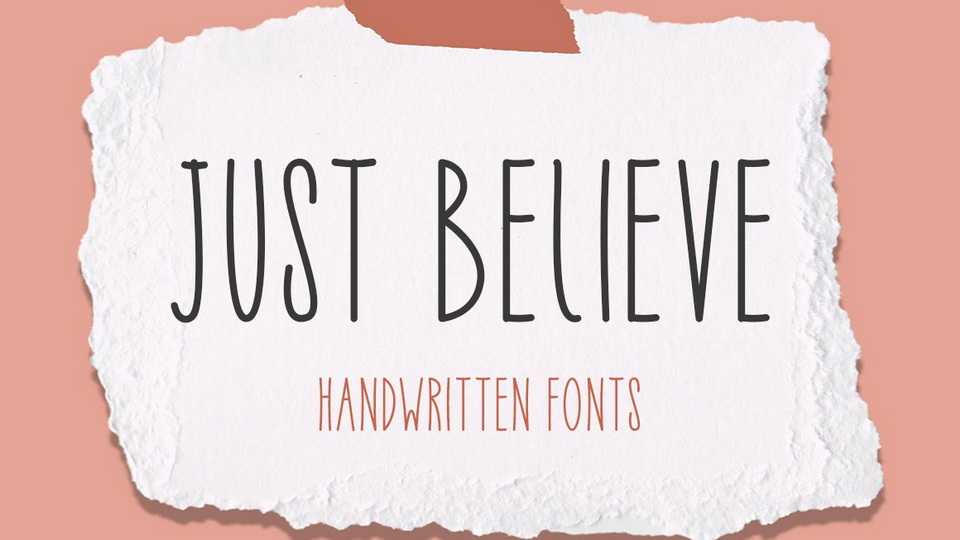
Download Just Believe font, a playful, slim and interesting looking handwritten typeface. It is suitable for use on quotes, branding, book, logos, social media, love quotes, watermarks, invitations.